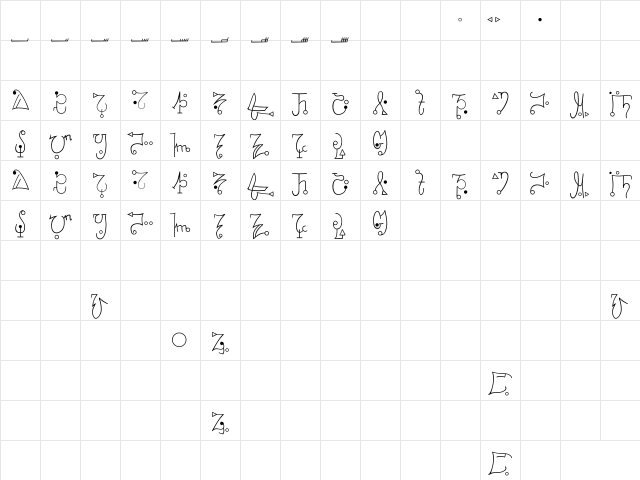
Complete Zhayad Normal Medium glyph index. Displaying only characters natively supported by Zhayad Normal Medium font.
Zhayad Normal is a composed and adaptable typeface that performs quietly and consistently across a wide range of design contexts.